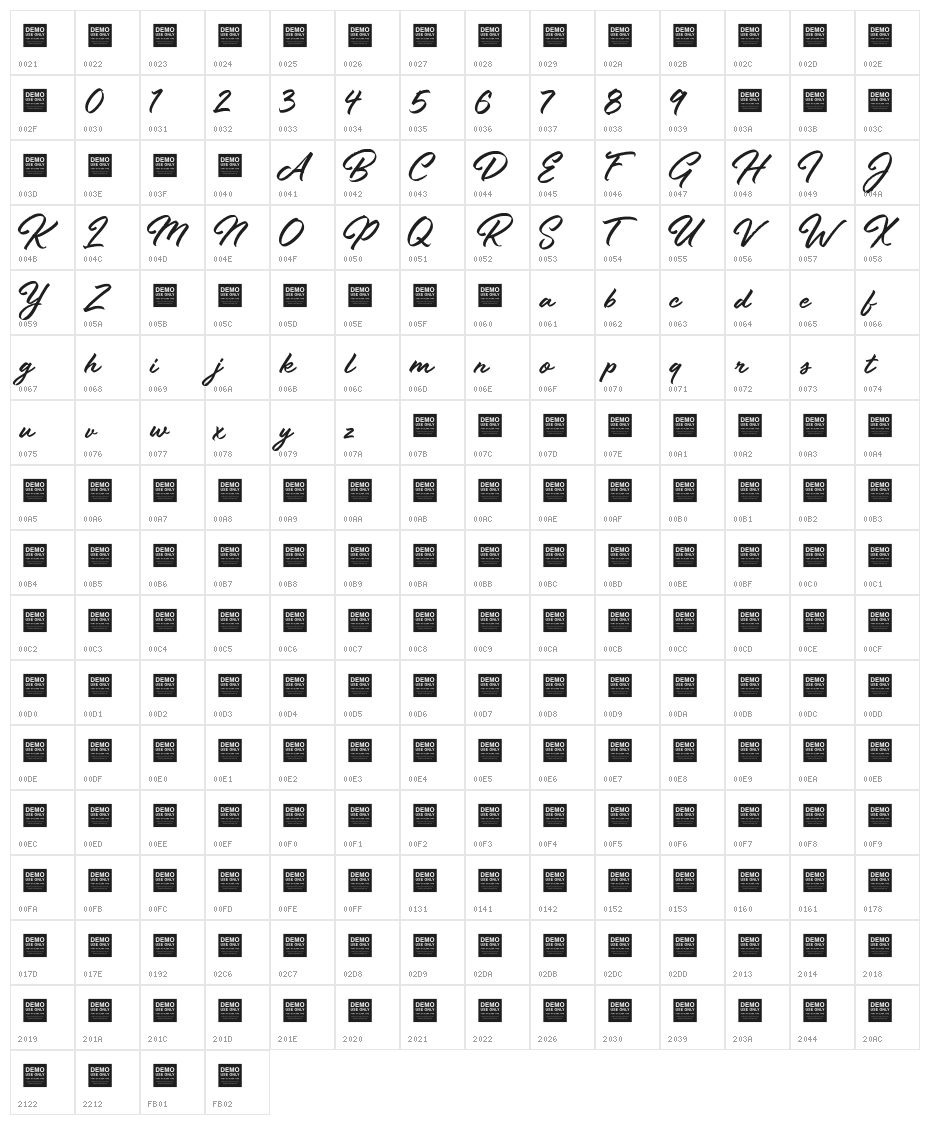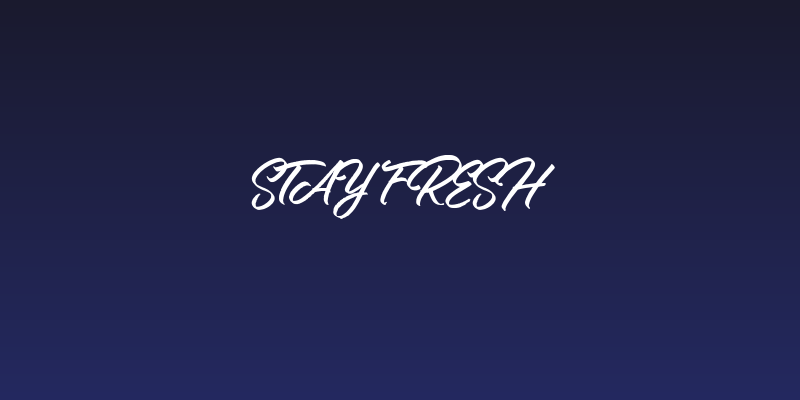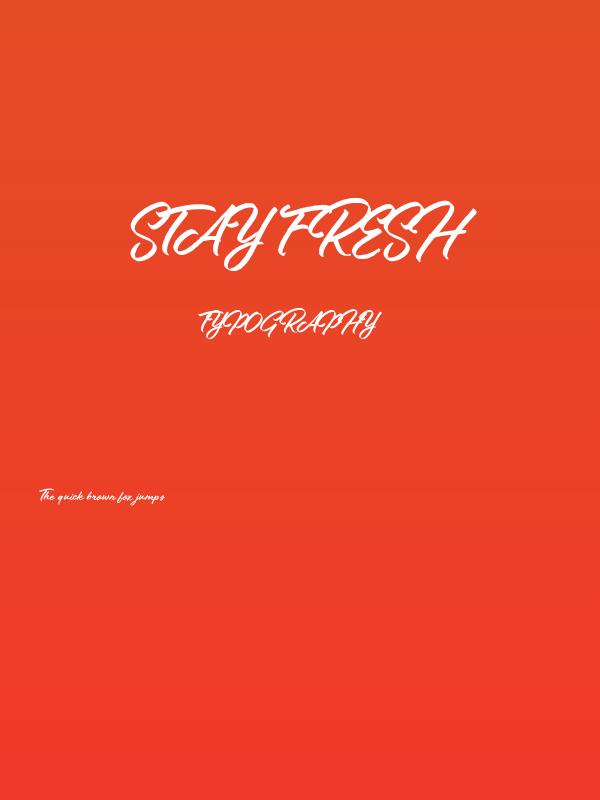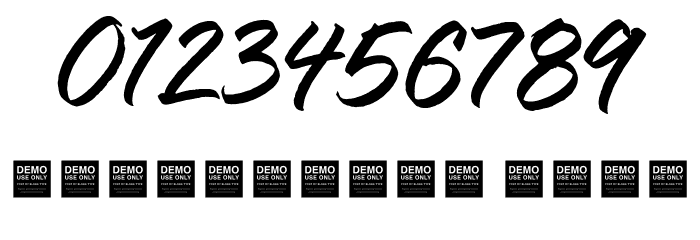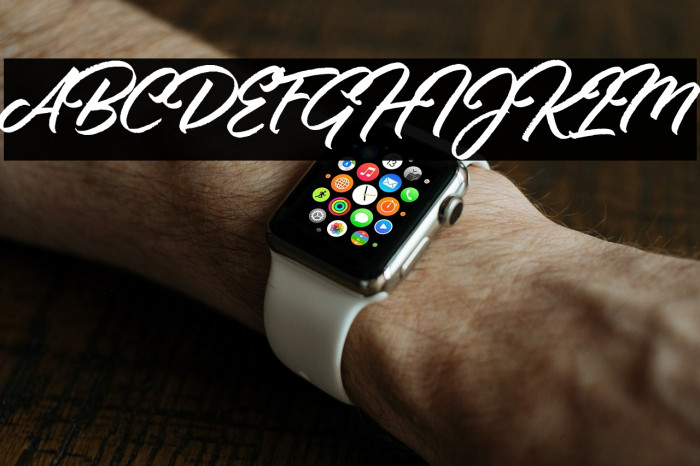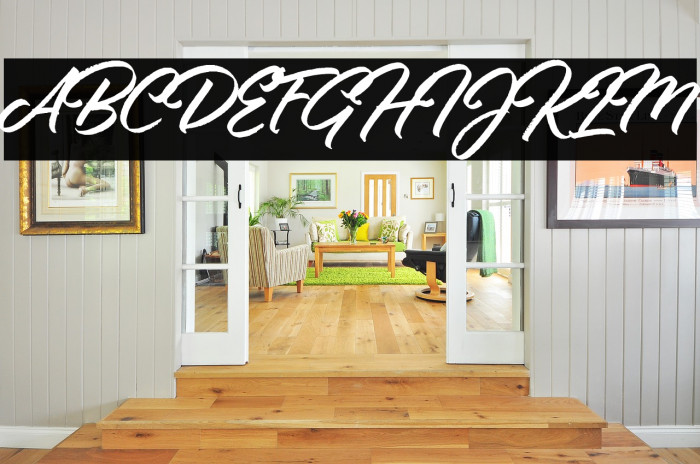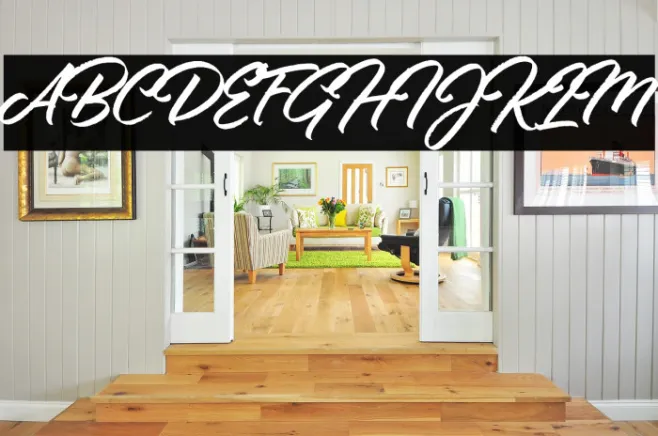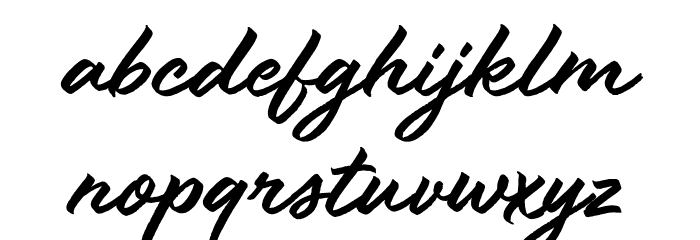
Stay Fresh Font
Stay Fresh Description
This font features a dynamic and flowing script style, characterized by its elegant cursive letterforms. The strokes are smooth and connected, creating a sense of fluidity and movement. The uppercase letters are bold and prominent, while the lowercase letters maintain a consistent flow, enhancing readability. The numerals are designed to match the script style, adding a cohesive look to any text. This font exudes a sense of sophistication and creativity, making it ideal for projects that require a personal touch.